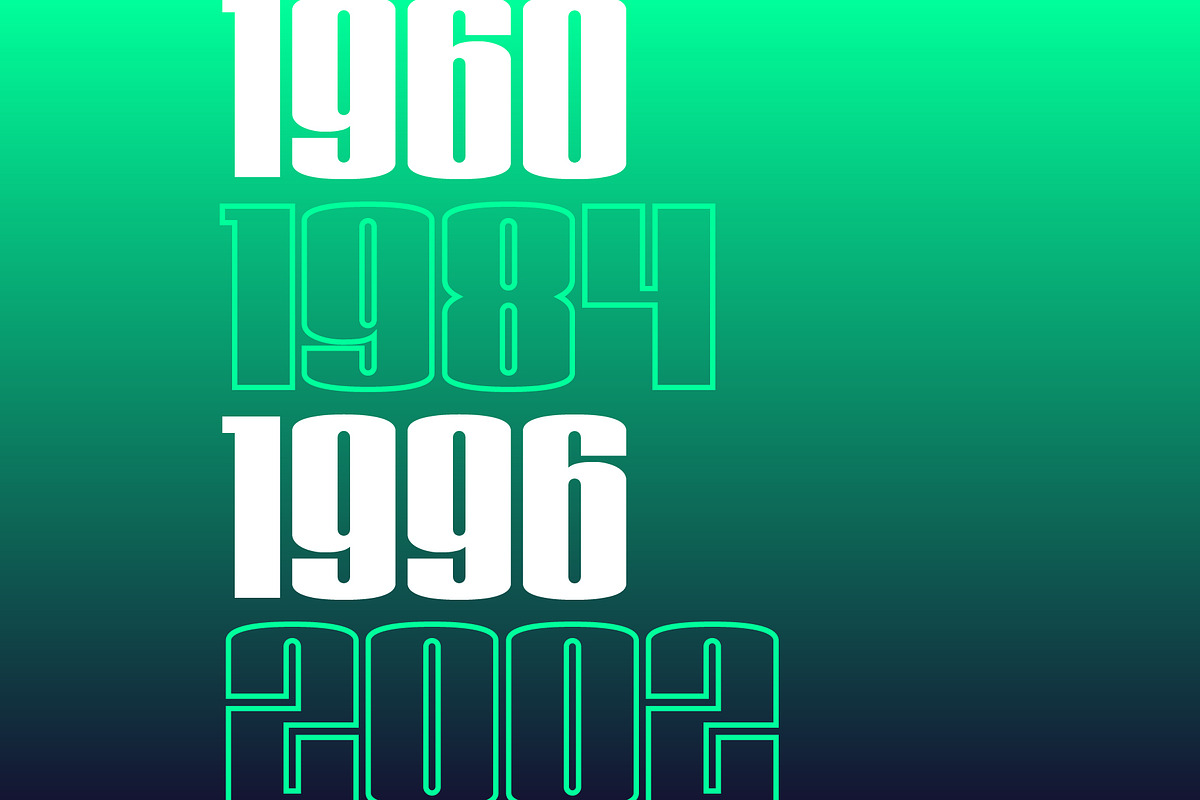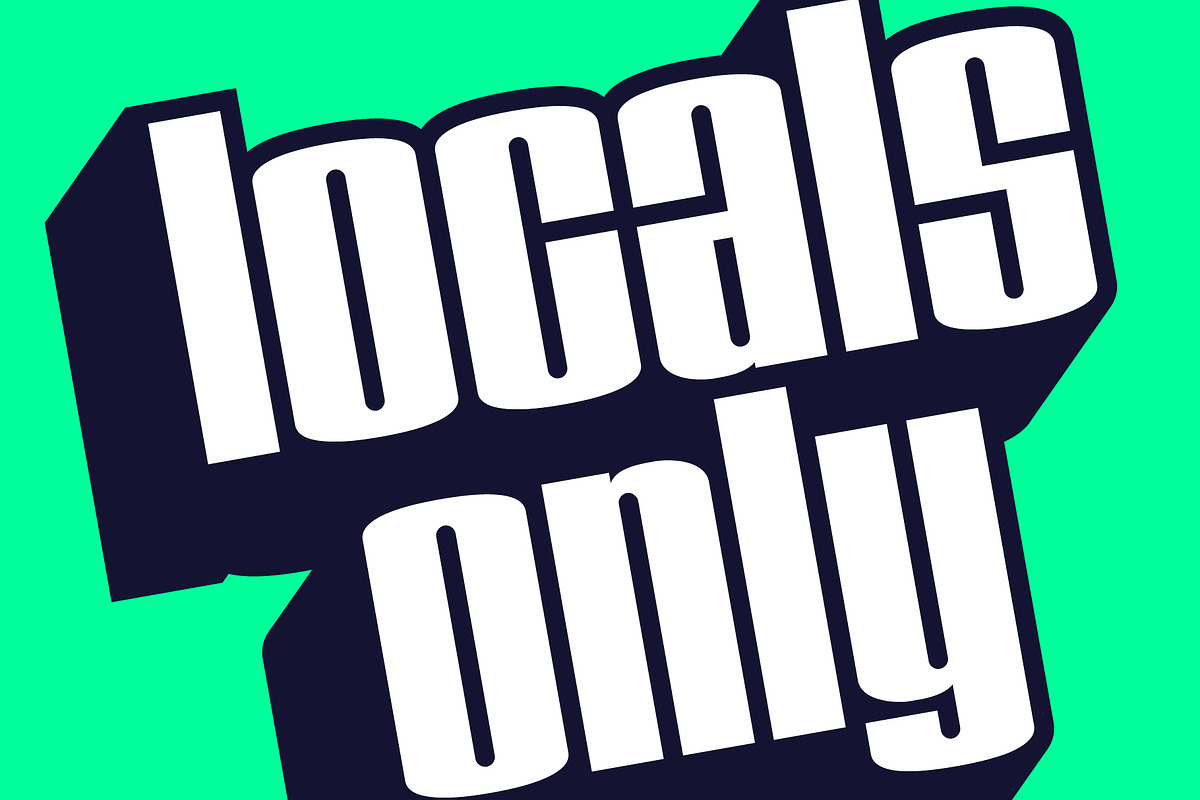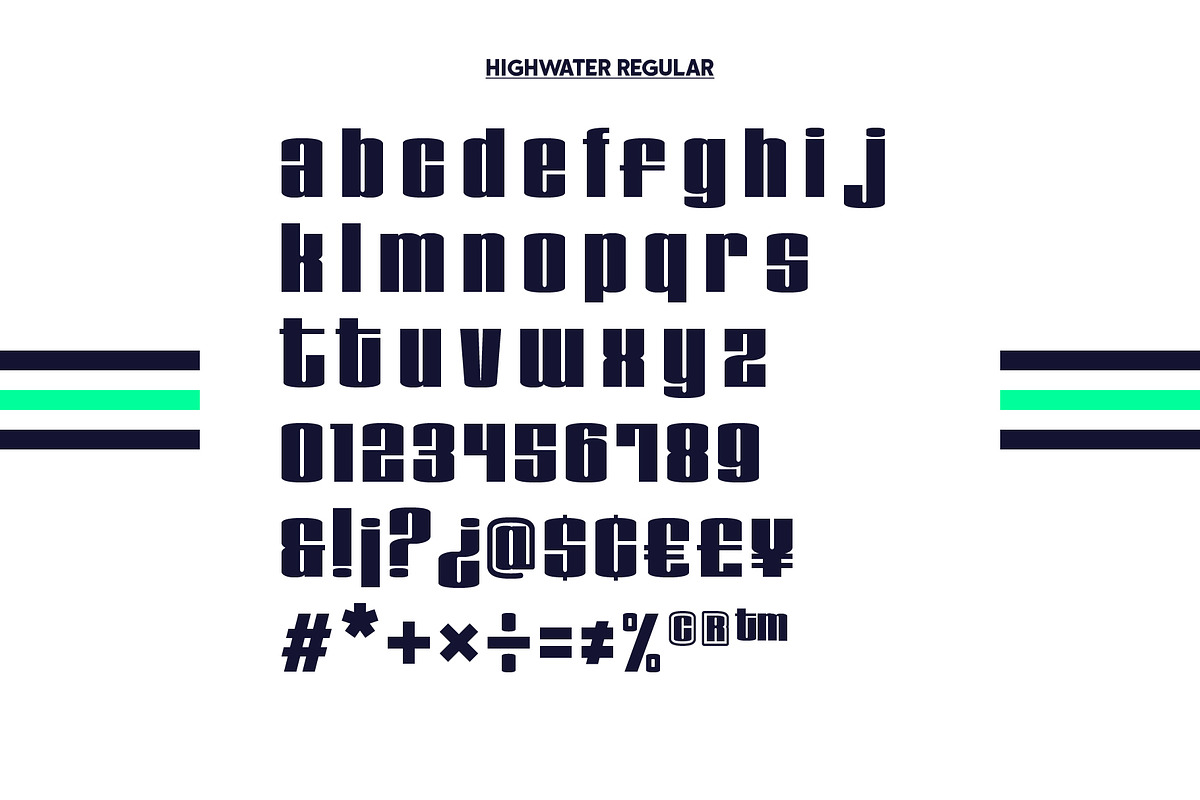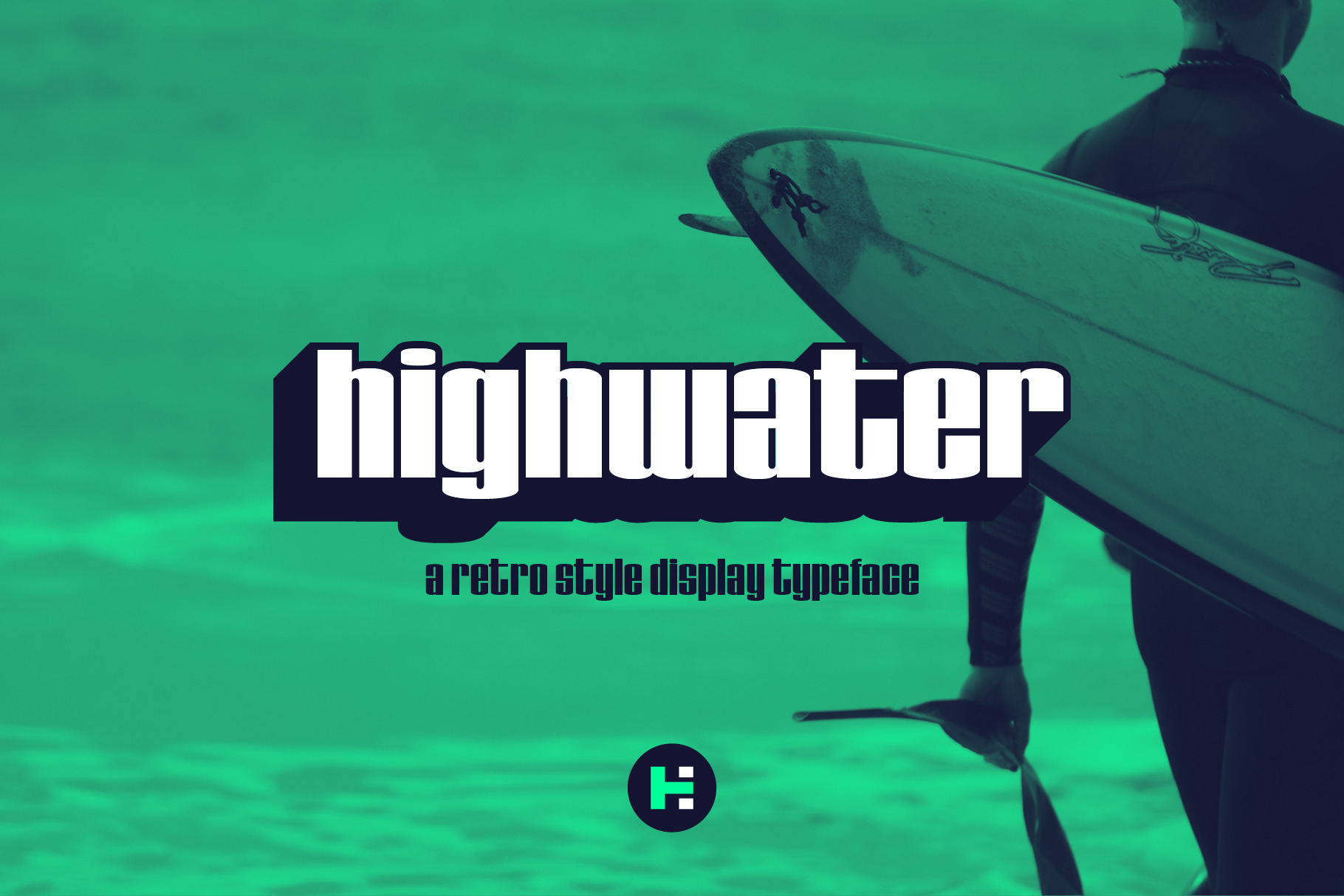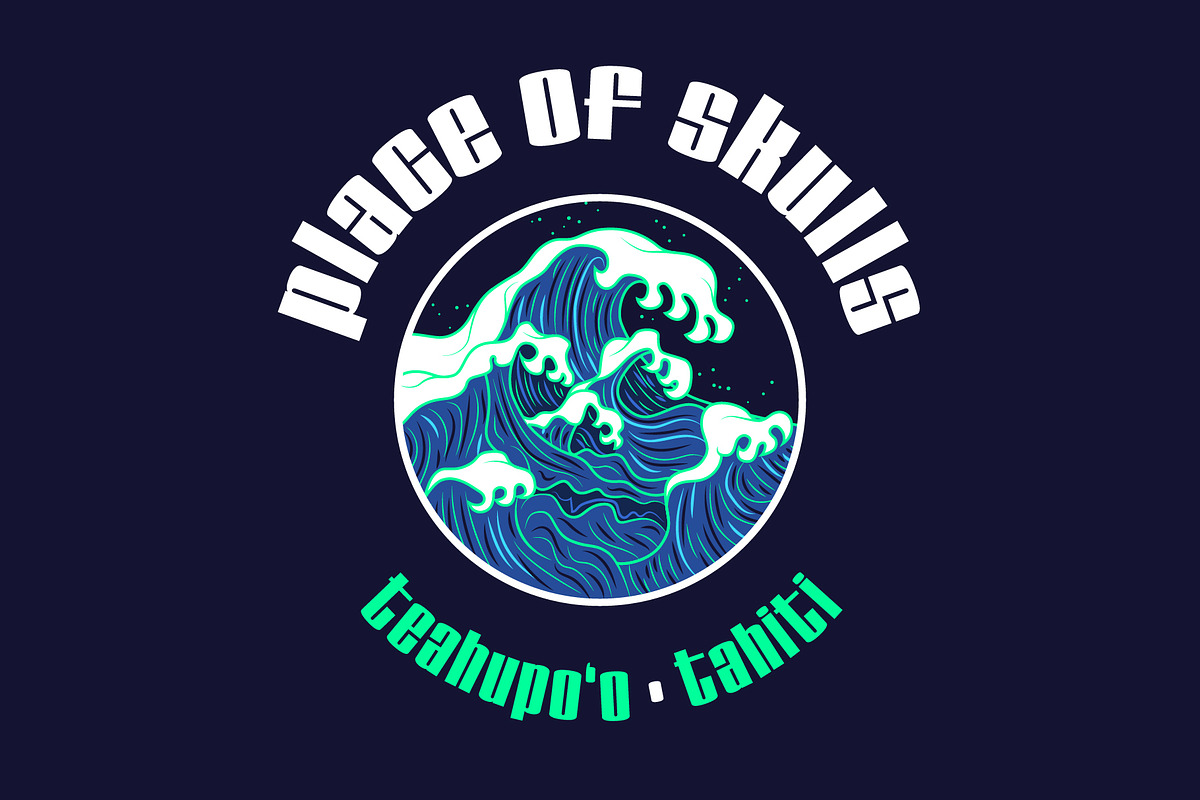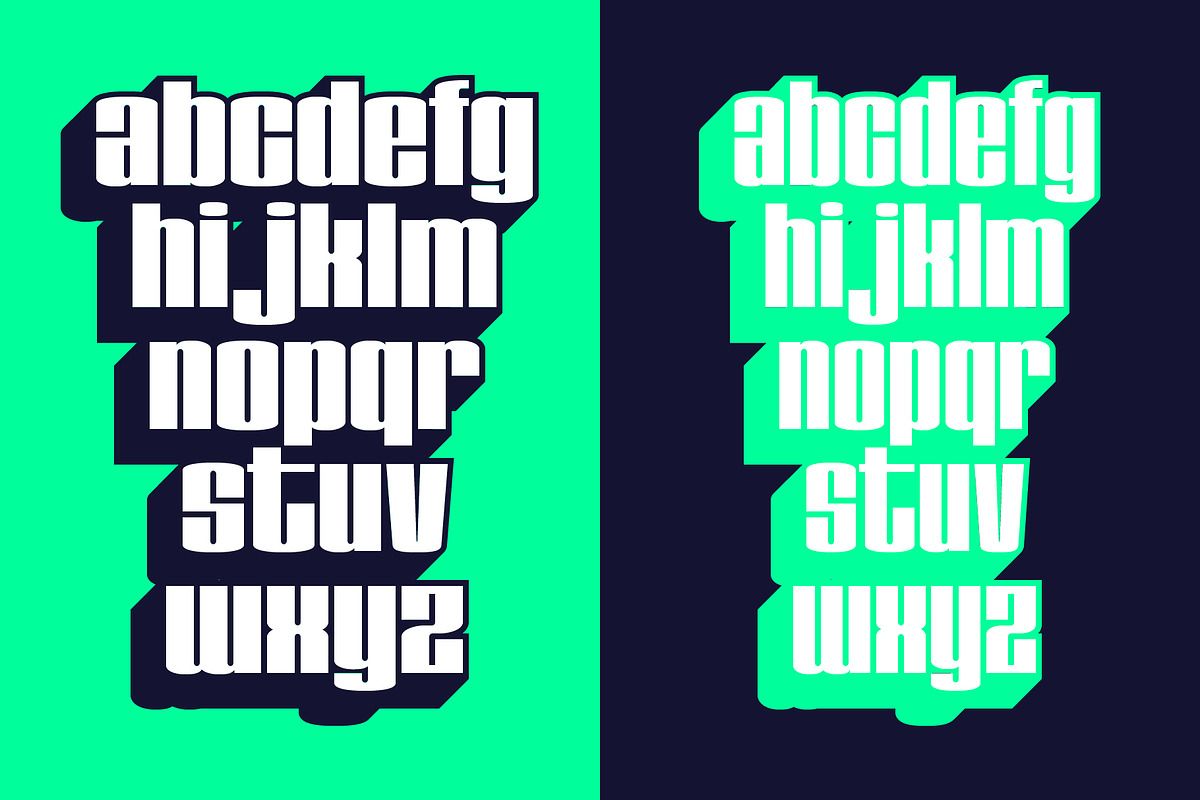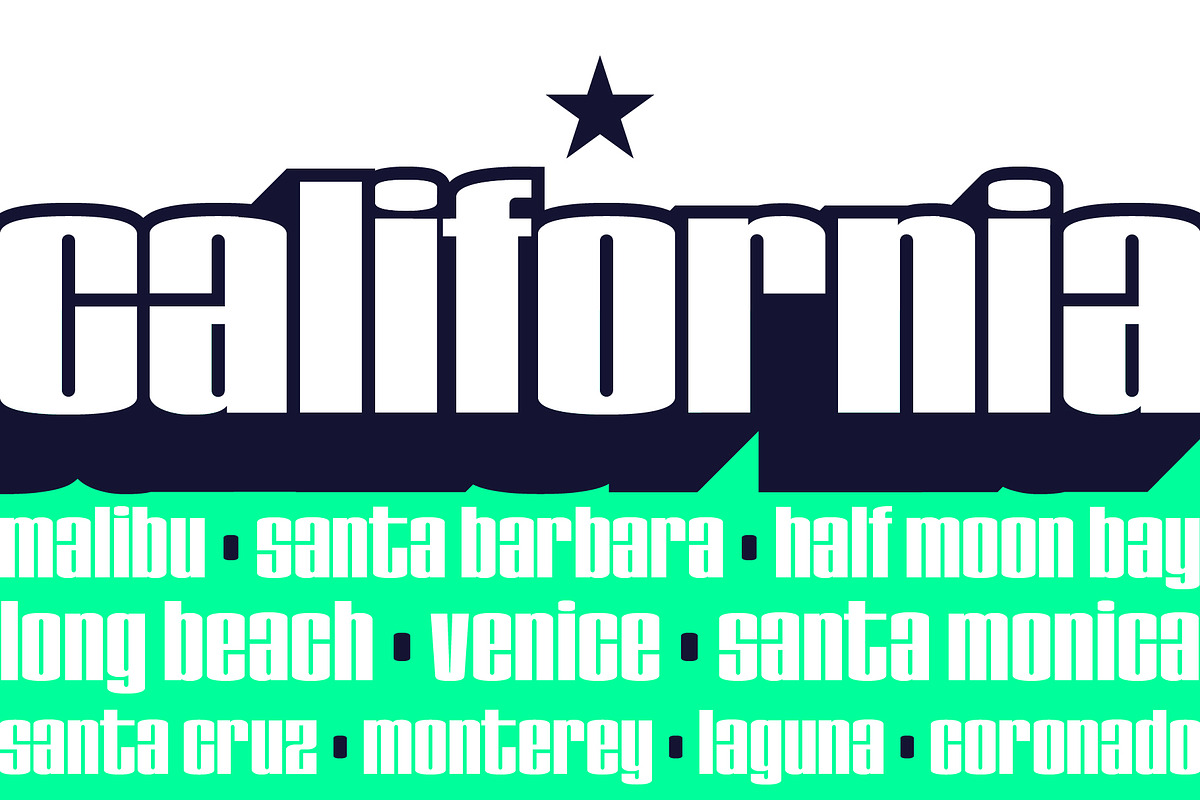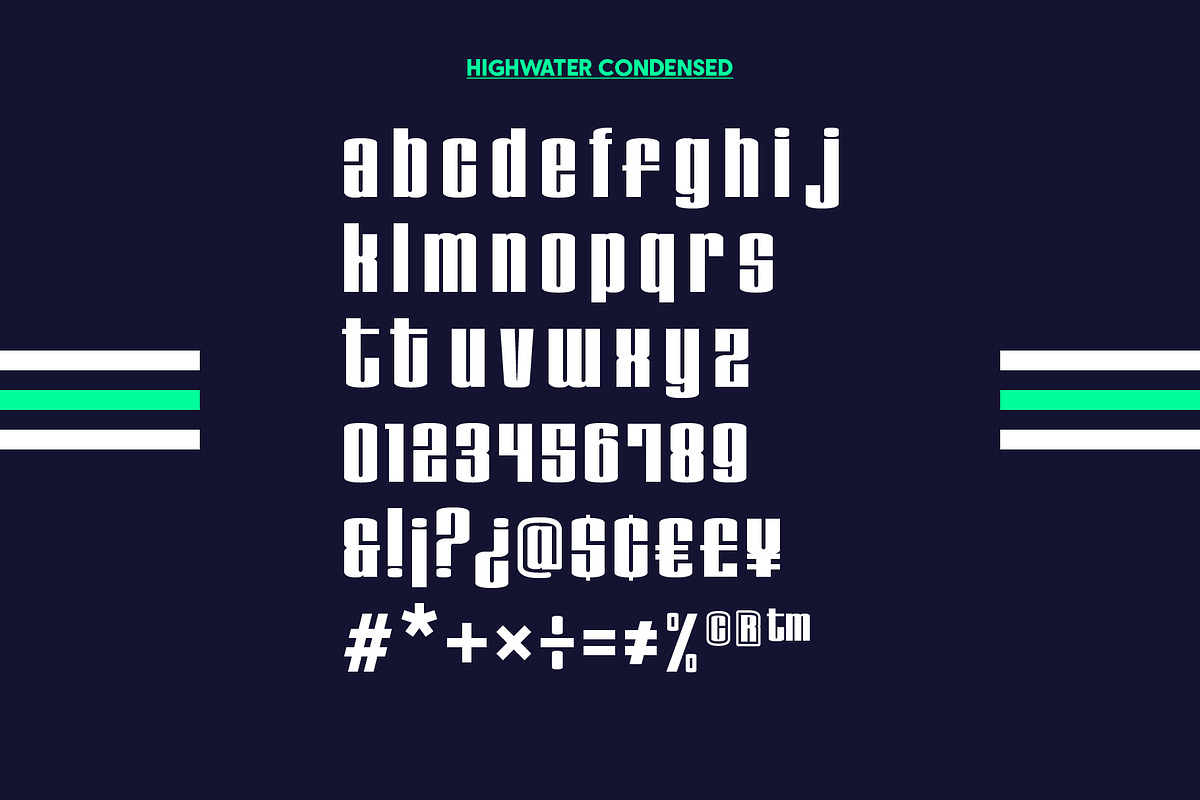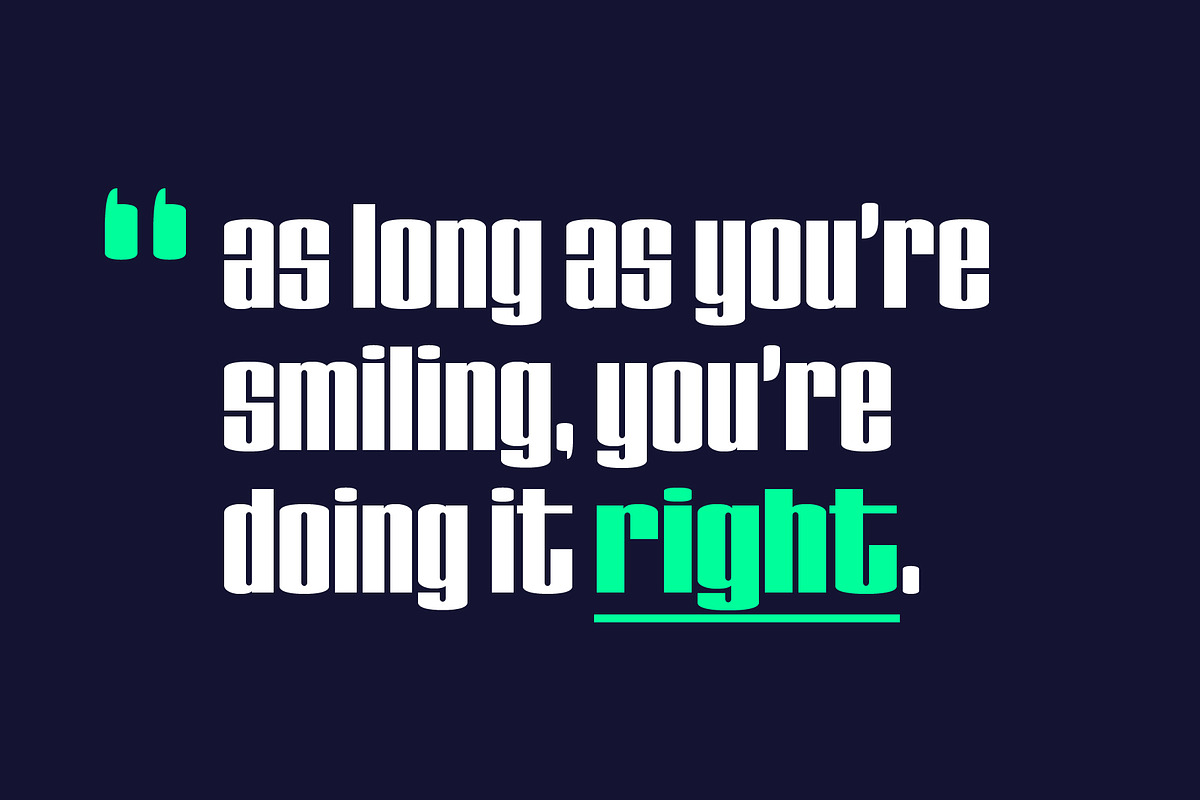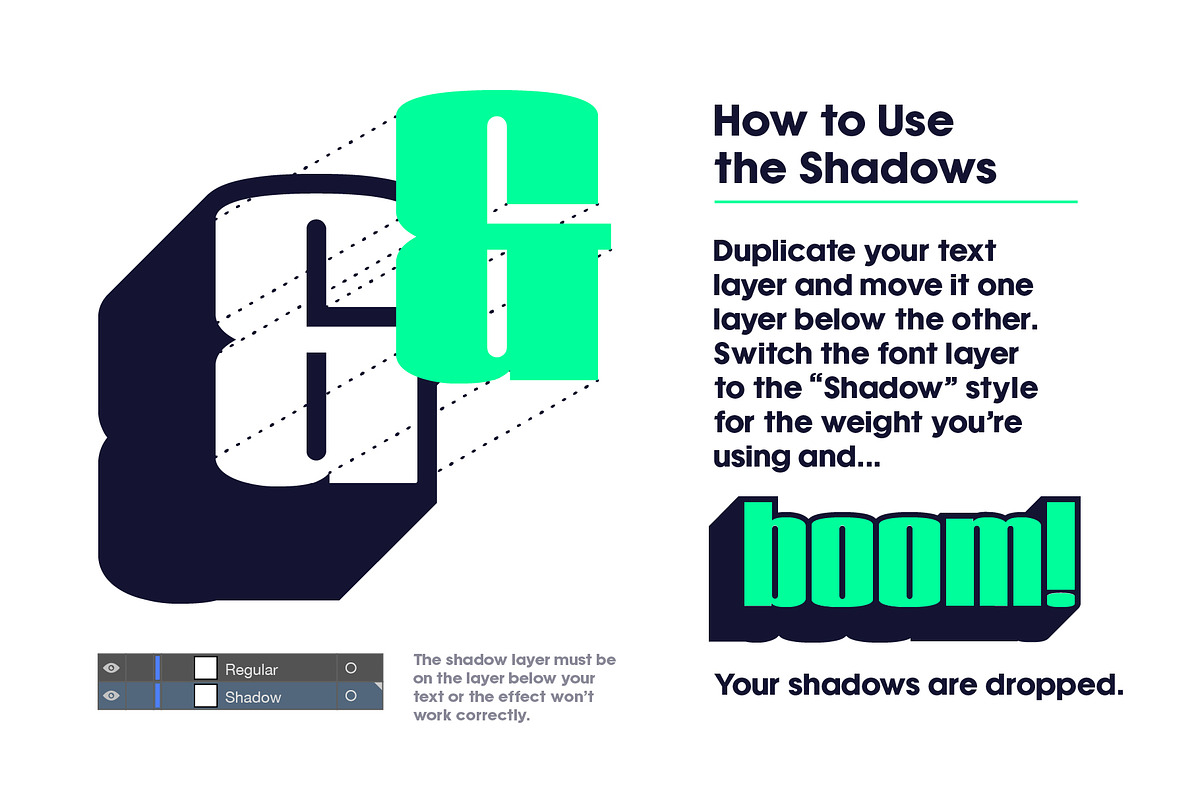
Highwater - A Retro Display Font
While searching for inspiration for another project, I came across some vintage surfing magazine covers and loved the typography. I sketched out a few letters based on the elements I liked - bold shapes, subtle curves and personality galore - and after a while I really wanted to see what an entire alphabet might look like. The result is my newest font family: Highwater.
Highwater is a bold, retro style display typeface that finds its inspiration from vintage surf and skate magazines with a combination of bold style and a laid-back, easy-going vibe. You can add a little "extra" to your typography with the shadow styles for both Highwater Regular and Highwater Condensed when you really need to make your text stand out from the pack.
Whether you’re designing posters, book covers, or magazine headlines, Highwater is ideal for titles, headers, or any text that needs your audience's attention.
Highwater is a display typeface designed to be used for headline sizes and larger.
- 2 Weights and Styles: Highwater Regular, Highwater Regular Shadow, Highwater Condensed, Highwater Condensed Shadow
- Standard English Alphabet - lowercase
- Numerals, Currency Symbols, Standard Punctuation, Diacritics